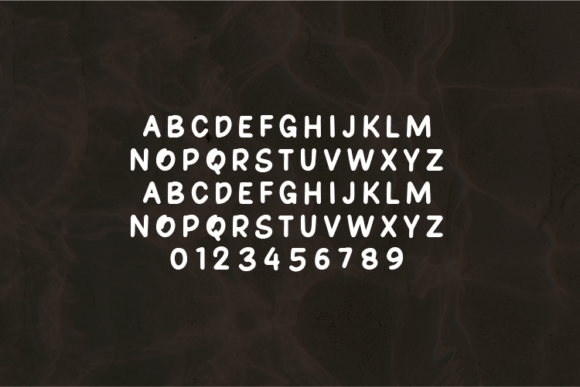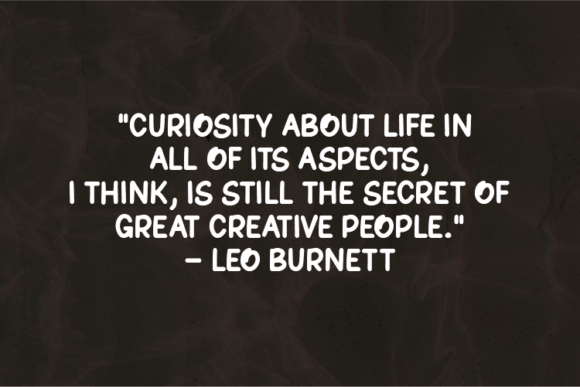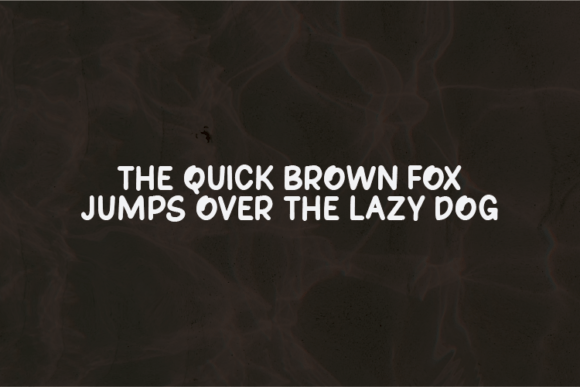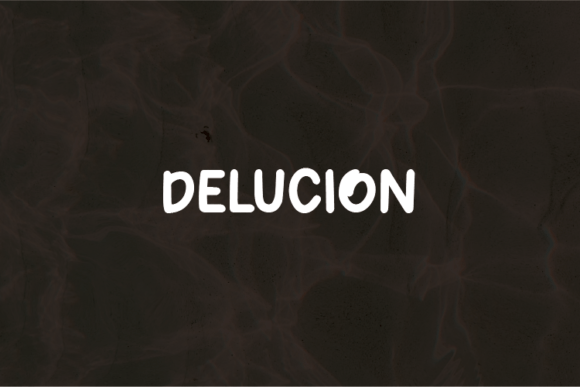
Introducing Delucion Font: The Unique Sans Serif for Creative Designs
In the world of typography, fonts play a crucial role in conveying messages and adding personality to designs. For designers and crafters, finding the perfect font can be a daunting task. However, if you’re looking for something unique and eye-catching, look no further than Delucion Font. This natural sans serif font is making waves in the design community, and for good reason.
The Story Behind Delucion Font
Delucion Font is a one-of-a-kind sans serif font that has been crafted with precision and attention to detail. What sets it apart from other fonts is its unique approach to character indentation. Unlike traditional fonts, Delucion’s creators made the bold decision to leave each character’s indentation untouched, resulting in a font that is both natural and intriguing.
The Characteristics of Delucion Font
So, what makes Delucion Font so special? Here are a few key characteristics that set it apart:
- Natural and Organic: Delucion Font has a natural, organic feel that is perfect for designs that require a touch of warmth and personality.
- Sans Serif: As a sans serif font, Delucion is clean, modern, and highly legible, making it perfect for a wide range of design applications.
- Unique Indentation: The font’s unique indentation approach gives it a distinctive look that is sure to grab attention.
Delucion Font is incredibly versatile and can be used for a wide range of creative projects, including:
- Quotes: Add a touch of elegance and sophistication to your quotes with Delucion Font.
- Notes: Use Delucion Font to add a personal touch to your notes and journals.
- T-Shirts and Apparel: Delucion Font is perfect for designing t-shirts, hoodies, and other apparel.
- Product Design: From packaging to branding, Delucion Font can add a unique touch to your product designs.
Why Designers and Crafters Love Delucion Font
So, why are designers and crafters raving about Delucion Font? Here are a few reasons:
- Uniqueness: Delucion Font is truly one-of-a-kind, making it the perfect choice for designers and crafters who want to stand out from the crowd.
- Versatility: The font’s versatility makes it perfect for a wide range of design applications.
- Ease of Use: Delucion Font is easy to use and pairs well with a variety of other fonts, making it a great addition to any design toolkit.
In conclusion, Delucion Font is a game-changer for designers and crafters looking for a unique and versatile sans serif font. Its natural, organic feel and distinctive indentation approach make it perfect for a wide range of creative projects. Whether you’re designing quotes, notes, t-shirts, or product packaging, Delucion Font is sure to add a touch of personality and elegance to your designs.